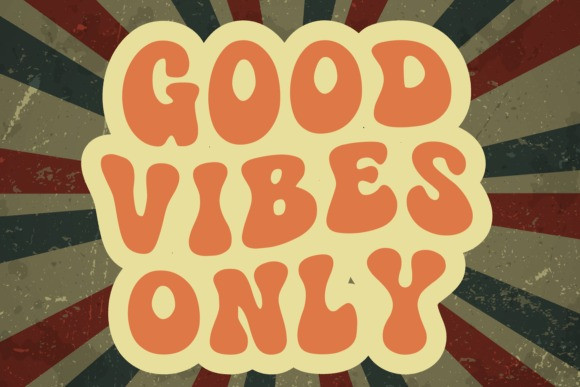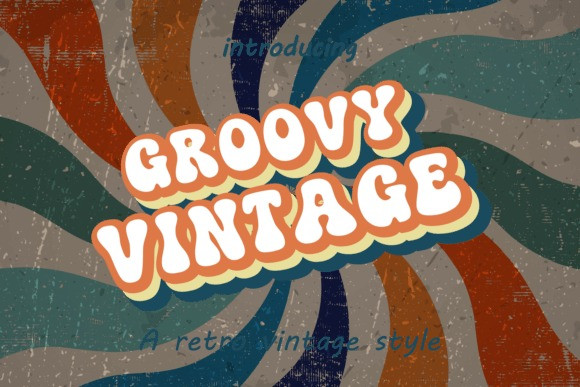
Groovy vintage Font
Groovy vintage Font A bold, retro-style display font featuring thick, rounded letters, wide curves, and smooth, uniform strokes. Inspired by 1970s design, its bubble-like shapes make it perfect for posters, album covers, t-shirts, branding, social media graphics, and product packaging. This font adds a vintage yet playful look to any creative project.